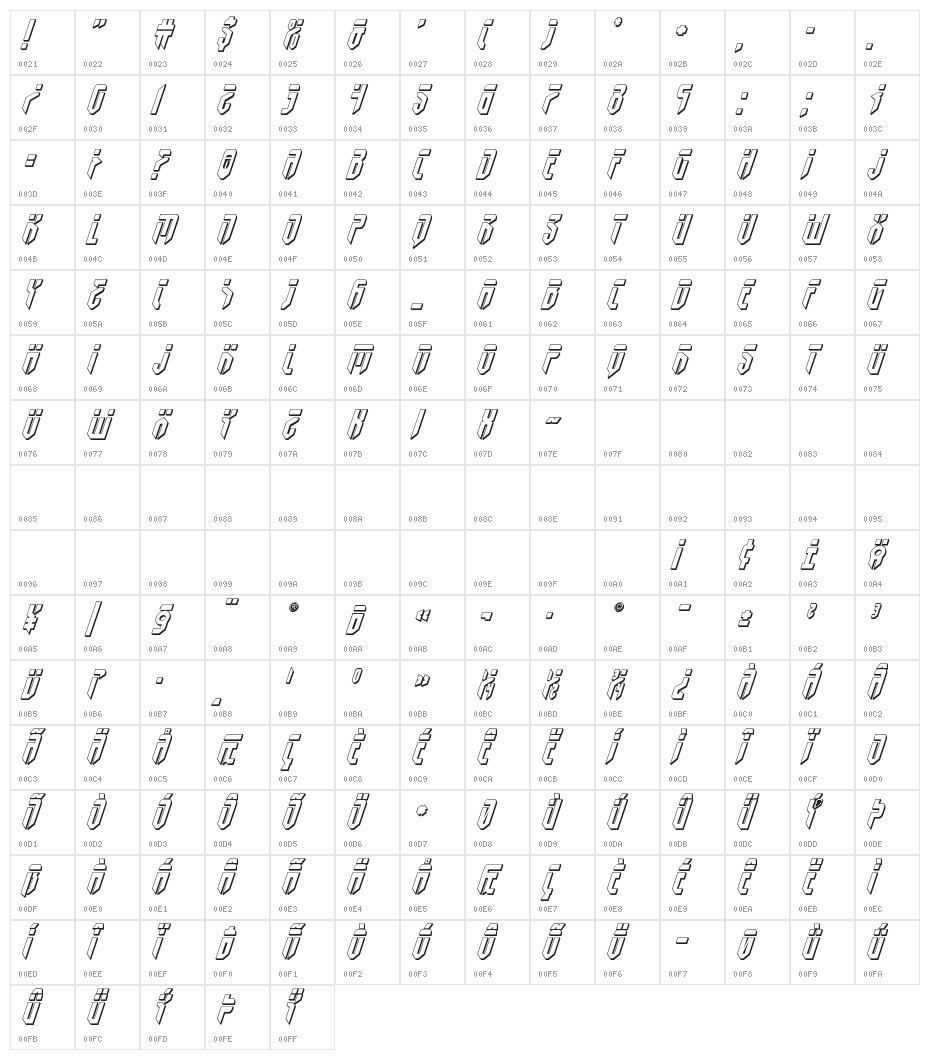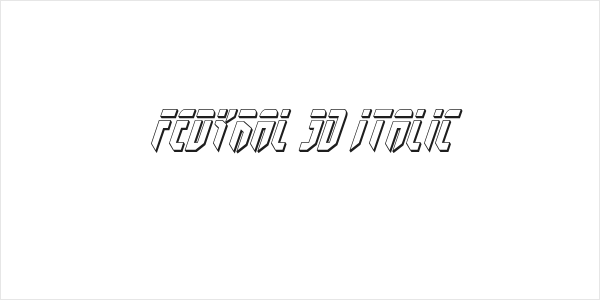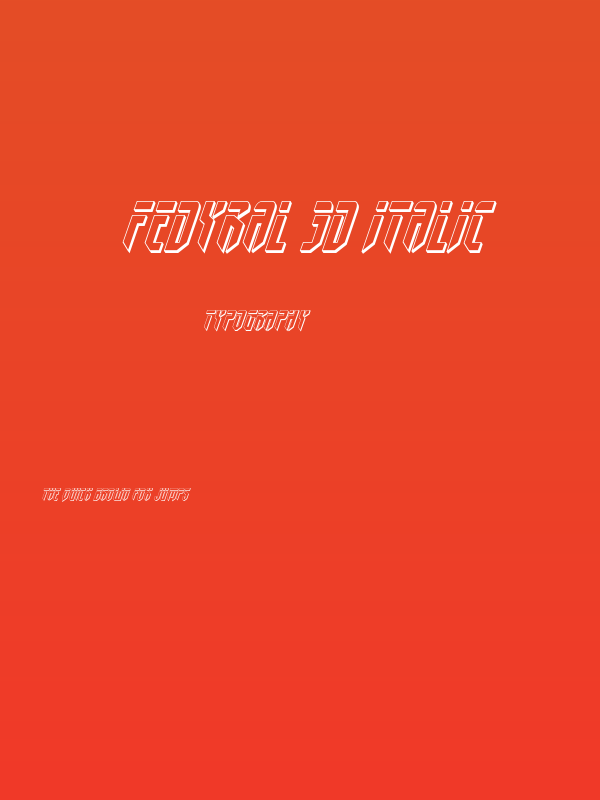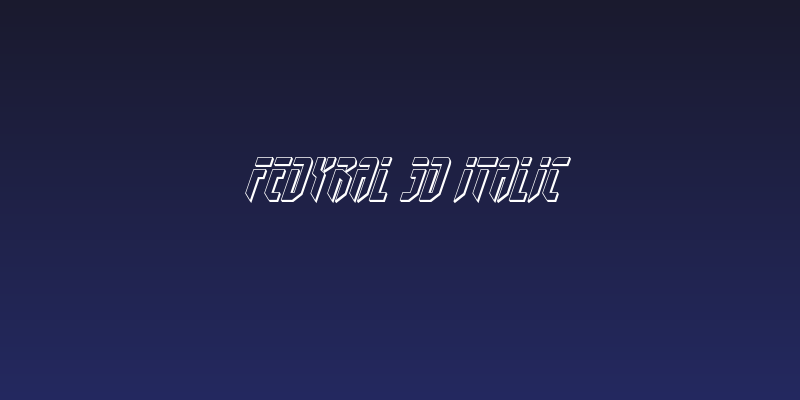
Fedyral 3D Italic Font
Fedyral 3D Italic Description
This font features a bold, three-dimensional design with an italic slant, creating a dynamic and futuristic appearance. The characters are outlined with a thick black border, enhancing the 3D effect and giving each letter a sense of depth and movement. The angular, geometric shapes of the letters contribute to a modern and edgy style, making it stand out in any design. The uppercase and lowercase letters maintain a consistent style, while the numbers and special characters are designed to match the overall aesthetic. This font is ideal for projects that require a bold statement and a touch of modernity.
| Proposed Projects | Ideal for video game titles, tech branding, futuristic posters, and dynamic logos. |